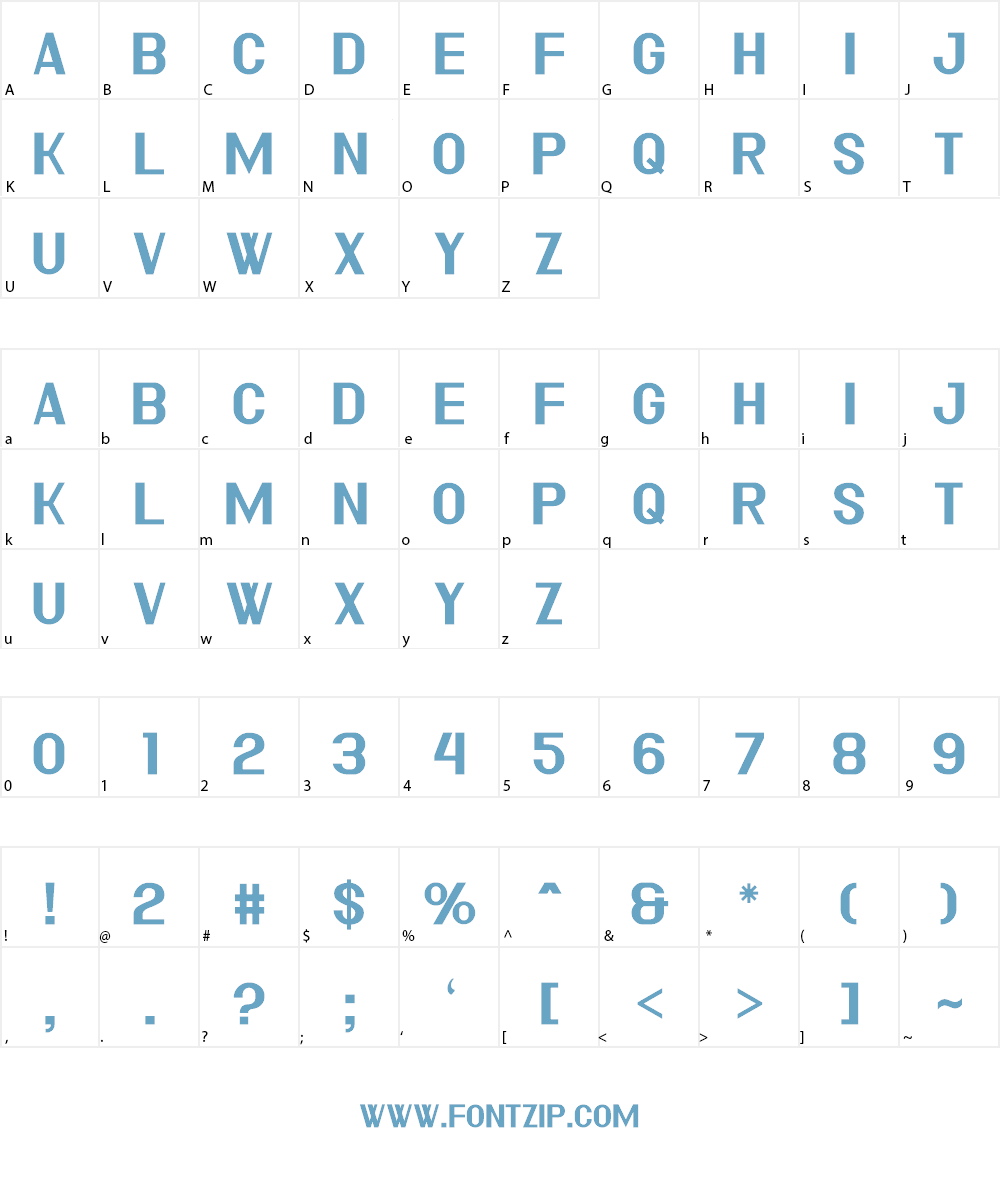
This font is based off of what I see and got for Christmas: http://i.ebayimg.com/00/s/NTEwWDUxMA==/z/yKUAAOxye3BRuywy/$(KGrHqZHJDgFC7lch,w9BRuyw)3Ffw~~60_1.JPG?set_id=880000500F